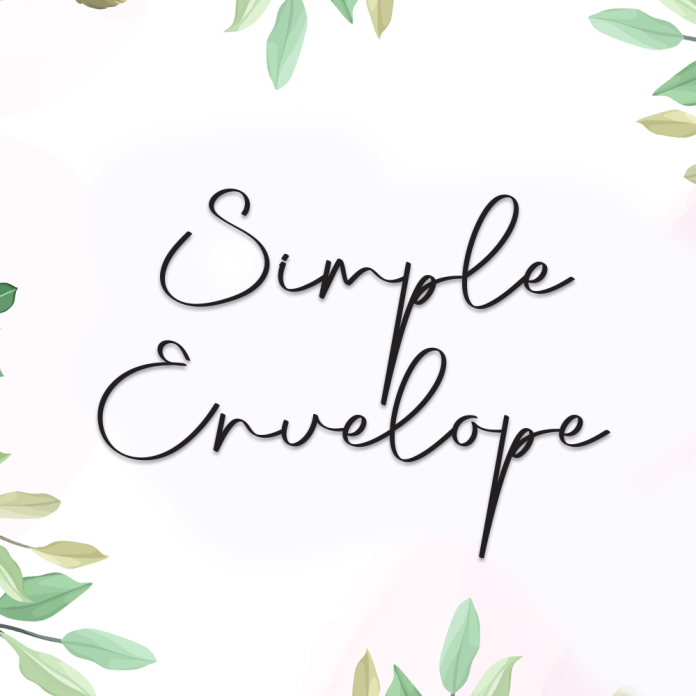
Simple Envelope is a delicate handwritten font that captures the warmth and authenticity of personal letters. With its smooth strokes and graceful flow, this font evokes the charm of handwritten notes and heartfelt messages.
Perfect for wedding invitations, greeting cards, personal branding, logos, and social media posts, Simple Envelope adds a touch of sincerity and elegance to any design.
Soft and clean handwriting style
Ideal for stationery, romantic designs, and branding
Includes uppercase & lowercase letters, numbers, and punctuation
Let your words feel more personal and beautiful with Simple Envelope – a font that feels like it's written just for you.